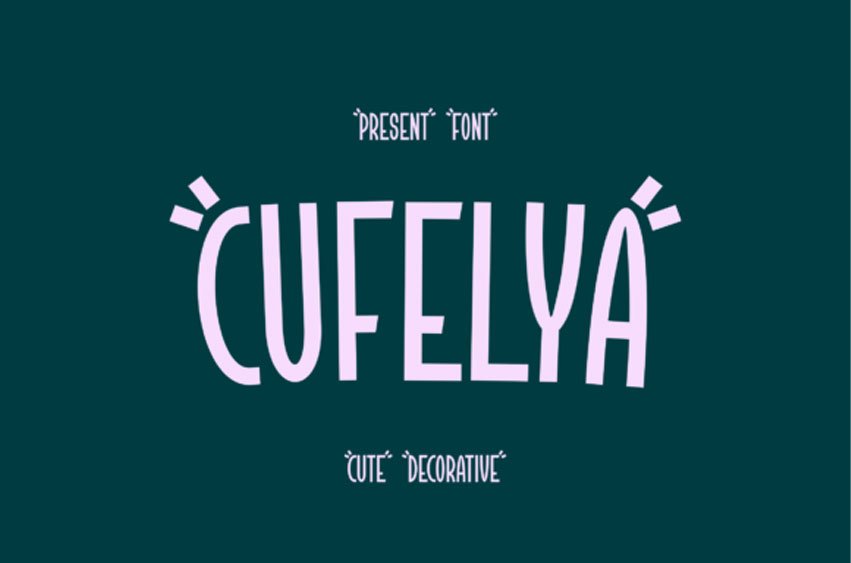
Cufelya Font is a fun and playful display font.
Whether you’re using it for crafts, digital design, presentations, or making greeting cards, this font has the potential to become your favorite go-to font, no matter the occasion!